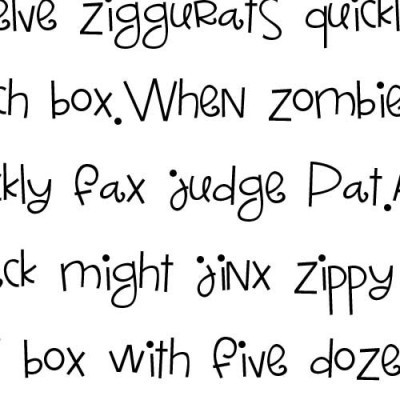
Amandita Font
Amandita Font is elegantly designed for romantic wedding invitations, luxury fashion branding, boutique jewelry packaging, sophisticated greeting cards, high-end beauty product labels, exclusive event stationery, feminine lifestyle blogs, artisanal craft labels, intimate restaurant menus, and delicate floral shop signage. This graceful typeface brings refined elegance and romantic charm to projects requiring sophisticated feminine appeal.
What makes Amandita Font so exciting is its exquisite blend of modern sophistication and timeless romance that creates an atmosphere of luxury and intimate elegance. The delicately crafted letterforms feature flowing curves and refined details that evoke feelings of love, beauty, and exclusivity. Its feminine character and artistic finesse make every word feel like a precious gift, establishing emotional connections through its authentic handcrafted appeal and romantic sensibility.
The Amandita Font family includes Regular, Light, Medium, Bold, and Script variations, each preserving the font's signature elegance while offering different visual weights for sophisticated design hierarchies. The family also features ornamental flourishes, decorative swashes, and alternative character sets that enhance creative possibilities. These comprehensive options provide designers with extensive tools for creating cohesive and luxurious typography systems.
Design professionals consistently choose Amandita Font Free Download for projects requiring authentic luxury appeal and romantic sophistication. The font's refined nature makes it particularly valuable for high-end wedding planners, luxury beauty brands, exclusive fashion designers, and premium lifestyle services. Its versatile character translates beautifully across both elegant print applications and sophisticated digital platforms while maintaining its delicate charm.
The technical craftsmanship of Amandita Font includes comprehensive character coverage, multilingual support, and carefully optimized spacing that preserves the natural elegance of refined typography. Advanced OpenType features provide access to contextual alternates, stylistic ligatures, and decorative elements that enhance the font's luxurious authenticity. Digital optimization ensures consistent rendering across various devices while maintaining the font's delicate romantic details.
Whether you're designing exclusive wedding materials, creating luxury brand identities, or developing sophisticated marketing campaigns, Amandita Font delivers the refined quality and romantic elegance your projects require. Its luxurious personality and professional execution make it an invaluable asset for connecting with audiences who appreciate beauty, romance, and exclusivity.
Embrace the luxurious romance of Amandita Font in your creative projects. This exceptional typeface combines sophisticated elegance with contemporary functionality, providing the refined quality necessary for creating memorable visual communications that celebrate femininity, luxury, and timeless romantic sophistication.